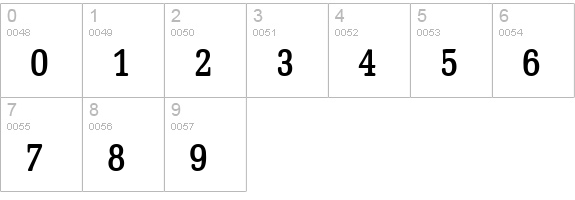
Bid Roman-Condensed Bold is a strong, high-contrast, condensed-width variant in the Bid typeface family \xE2\x80\x94 well suited to headlines, attention-grabbing titles, and strong calls-to-action.
Bid Roman-Condensed Bold font is a modern and sleek typeface that exudes confidence and sophistication. Its bold and condensed design makes it perfect for creating impactful headlines and eye-catching designs. With its strong presence on the page, Bid Roman-Condensed Bold commands attention and adds a touch of elegance to any project. The best part? Bid Roman-Condensed Bold font is available for free download at FontsMarket.com, making it easily accessible for designers and creatives looking to elevate their work with a premium quality typeface. Don't miss out on the opportunity to enhance your designs with this versatile and stylish font that is sure to make a bold statement. Download Bid Roman-Condensed Bold today and take your projects to the next level!